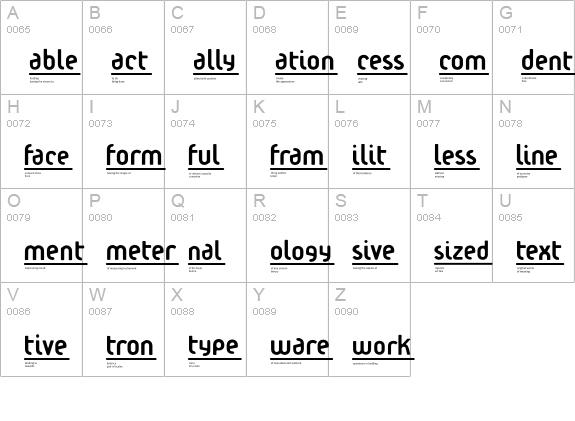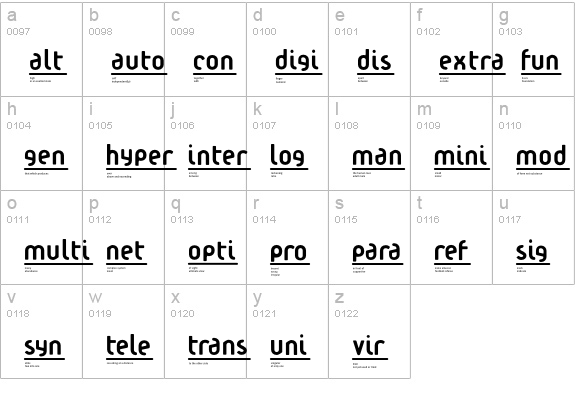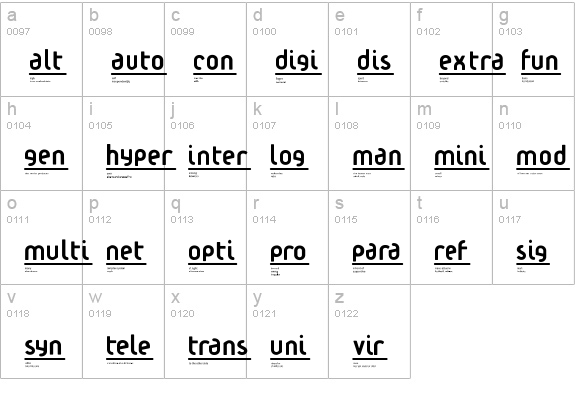
Condition-Conception Font Details
Introducing the exquisite and versatile Condition-Conception font, designed to elevate your creative projects with its sleek and modern aesthetic. This font exudes elegance and sophistication, making it perfect for a wide range of design applications. With its clean lines and stylish curves, Condition-Conception adds a touch of refinement to any project. What sets Condition-Conception font apart is not only its stunning design but also the fact that it is completely free to download. Yes, you read that right - this high-quality font is freely available for download at FontsMarket.com. Embrace the opportunity to enhance your designs with this exceptional typeface without any cost involved. Ideal for branding, packaging, invitations, and more, Condition-Conception font offers a fresh and contemporary look that will captivate your audience. Elevate your designs to new heights with this remarkable font, now easily accessible for free at FontsMarket.com. Don't miss out on the chance to add a touch of sophistication to your projects with Condition-Conception font. Download it today and let your creativity shine!